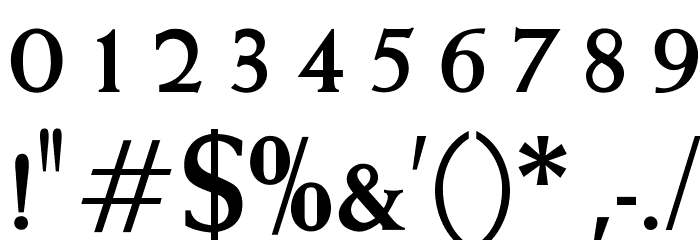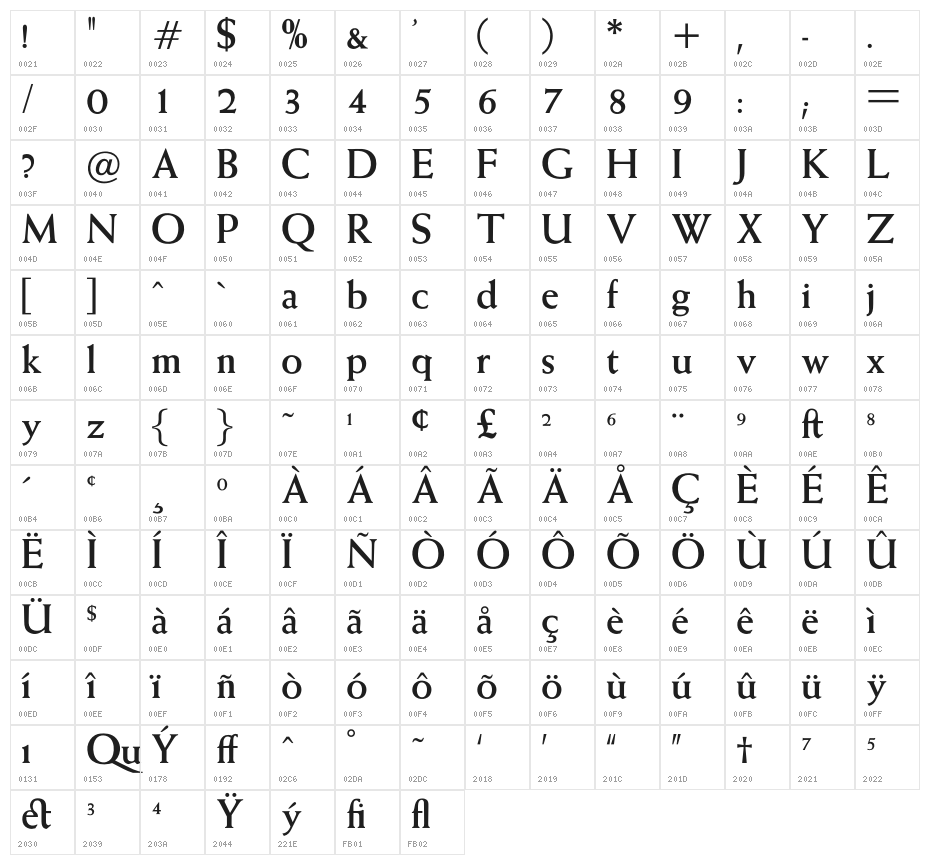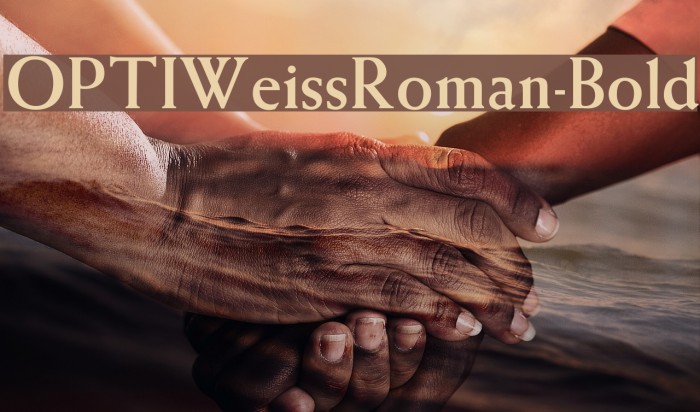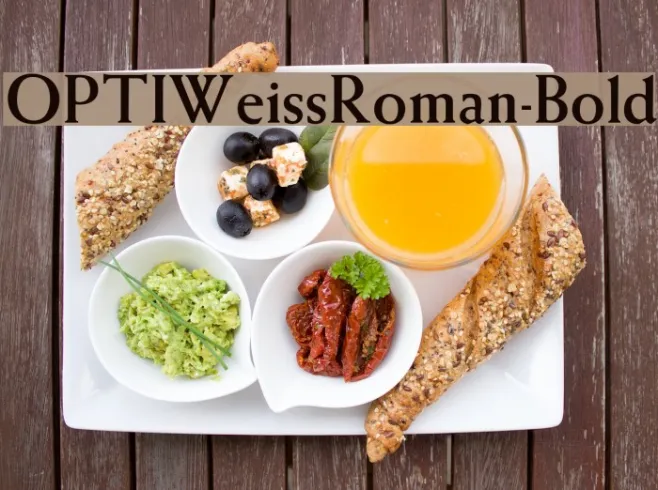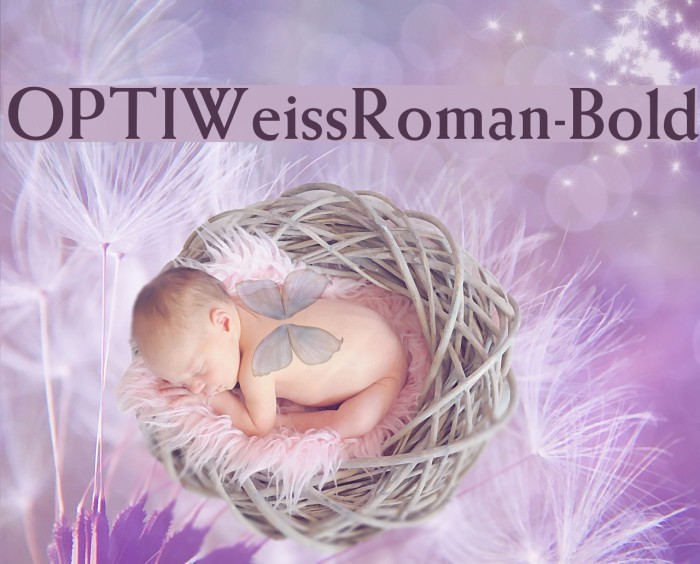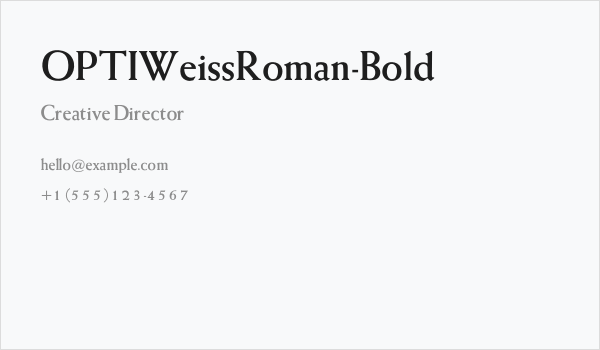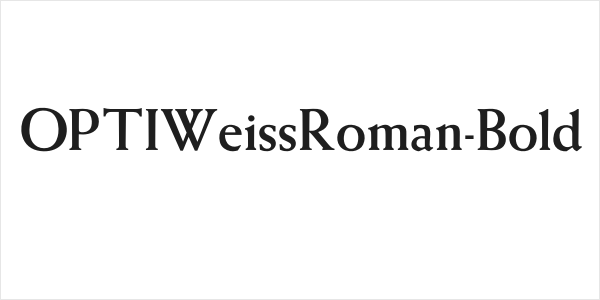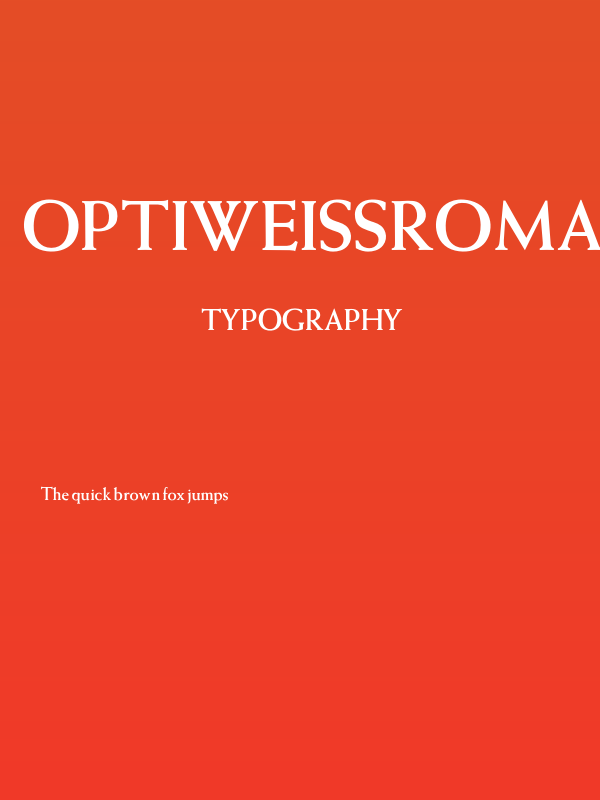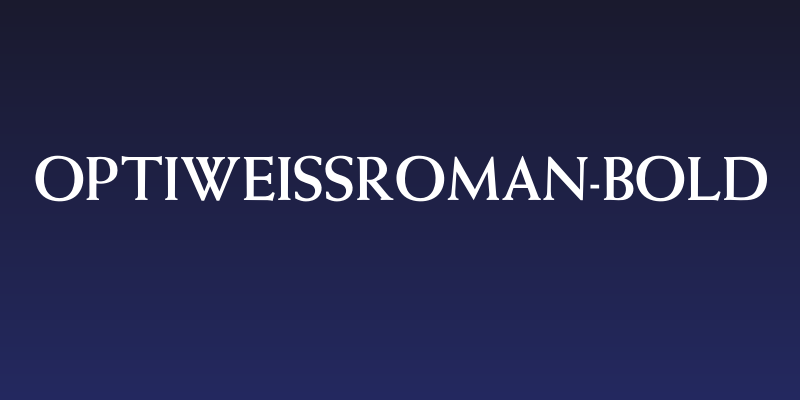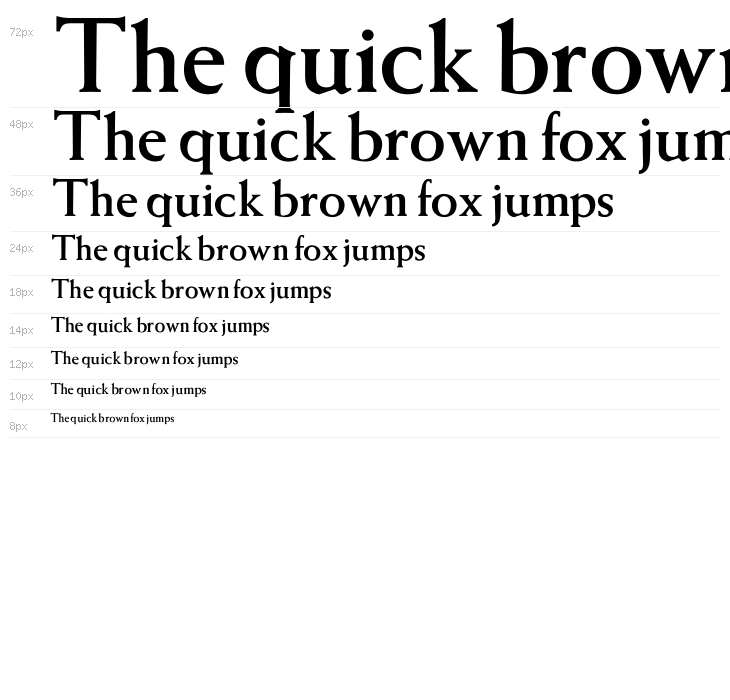
OPTIWeissRoman-Bold Font
OPTIWeissRoman-Bold Description
This font exhibits a classic serif style with a bold weight, characterized by its strong, authoritative presence. The serifs are pronounced, adding a touch of elegance and tradition. The uppercase letters are tall and commanding, while the lowercase letters maintain a consistent flow with slightly rounded edges. The numerals are clear and distinct, ensuring readability. Special characters are well-defined, complementing the overall aesthetic. This font is suitable for projects that require a blend of sophistication and clarity.
| Use Case | Headlines, Logos, Editorial design |
| Proposed Projects | Ideal for book covers, formal invitations, branding materials, and editorial design. |